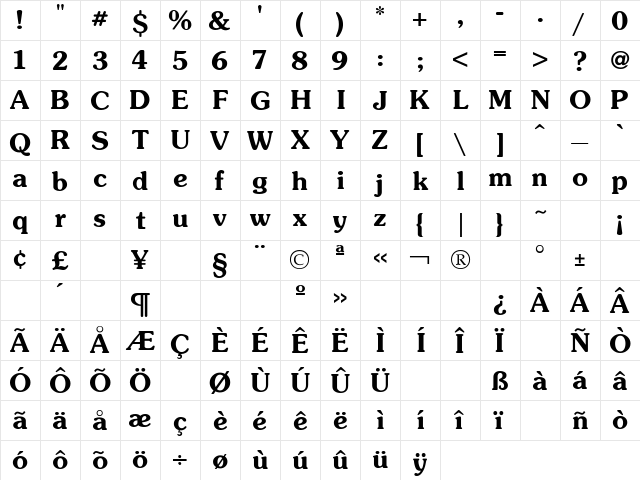
Souvenir Demi Font Preview
Souvenir Demi
Design Context for Souvenir Typeface
Souvenir offers clean, dependable letterforms without strong stylistic allegiance, making it a practical choice for designers who need flexibility.